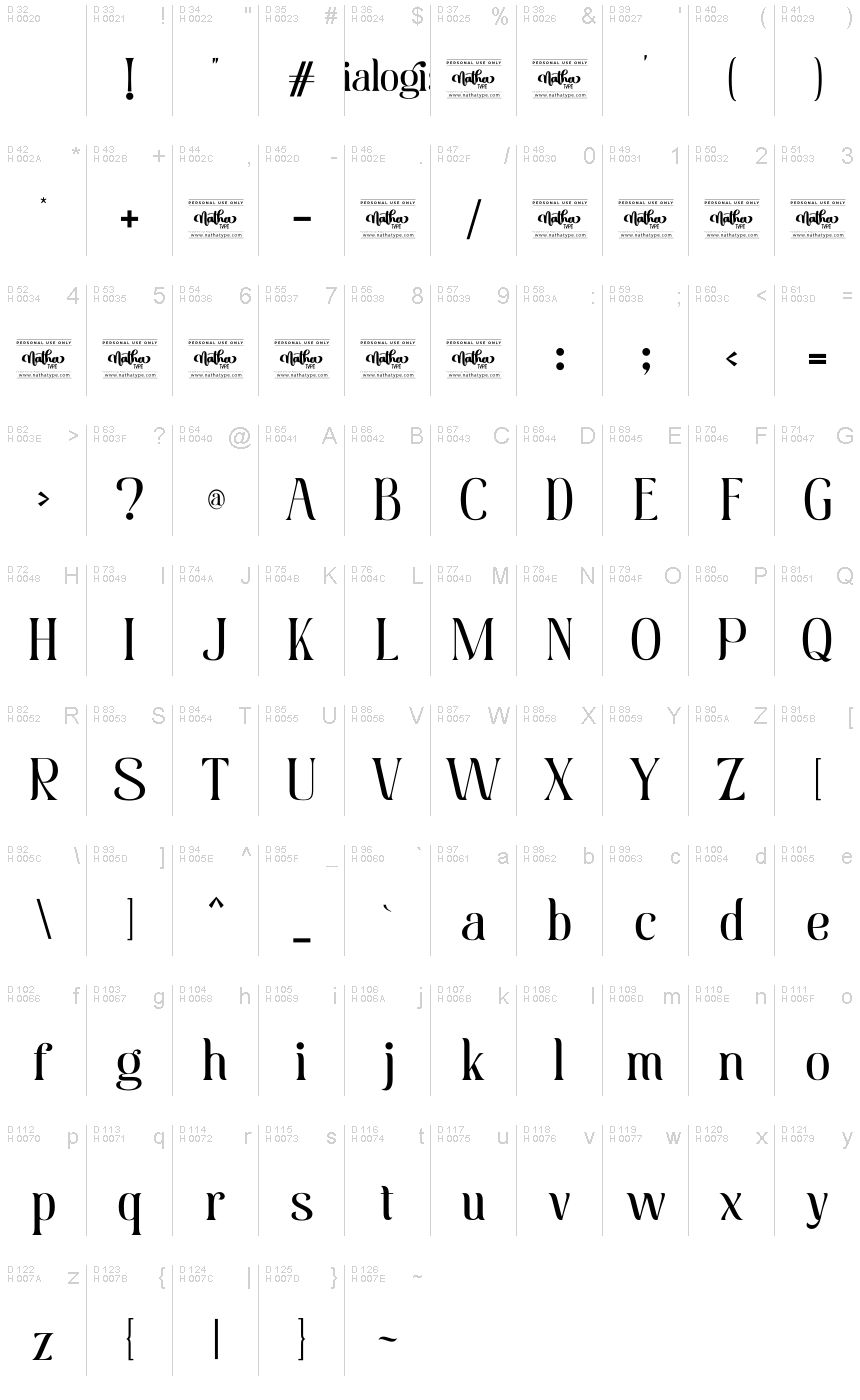
Dialogist Personal Use
Dialogist, designed by Nathatype, is a captivating serif font that marries elegance with sophistication. Its distinct character shines through in the fluid curves and graceful proportions, creating an inviting visual experience. The font strikes a balance between strikingly bold letters and delicately refined details, ensuring it stands out without overwhelming.
Ideal for editorial layouts, branding projects, or high-end invitations, Dialogist infuses any design with a sense of luxury and thoughtful craftsmanship. Its unique articulation offers versatility across both print and digital mediums, making it perfect for storytelling where every detail matters. Whether used in headlines or body text, Dialogist enhances readability while exuding charm and personality—an essential choice for anyone looking to elevate their visual narrative.